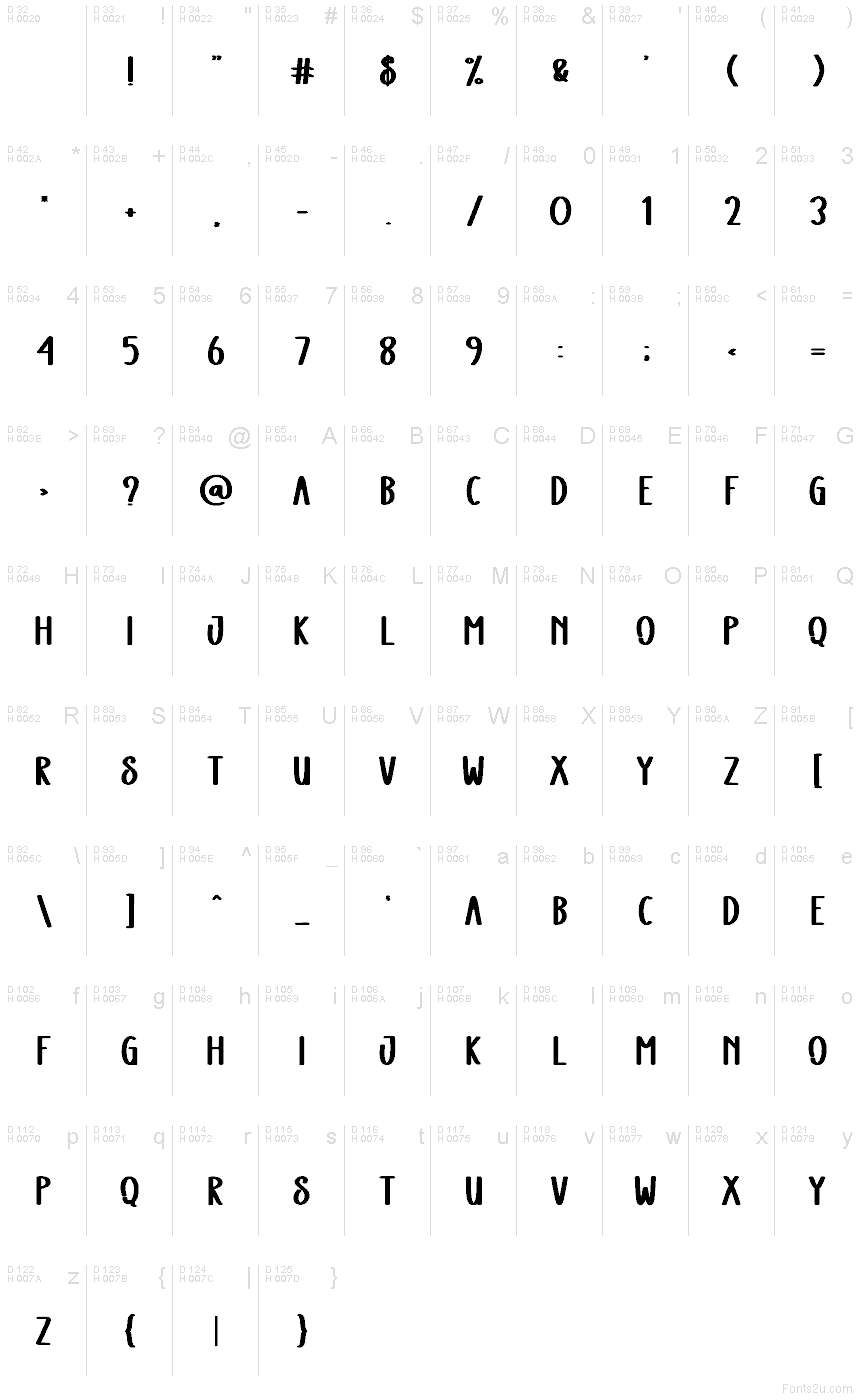
Winter Meeting
Winter Meeting font by Andi Moz features a condensed handwritten appearance with a casual aesthetic. Its sans-serif style and flared ends provide both formality and uniqueness which you can notice in titles, headers, and more. The free handwritten font is clean, legible, and gives the familiarity found in individual handwriting.
Use it for invitations to fall/winter dinners or New Year’s Eve parties or flyer designs. The simplicity of the font also works great for branding projects that require signatures like logos, labels, product packaging, or business cards. Or simply spice up your identity cards!